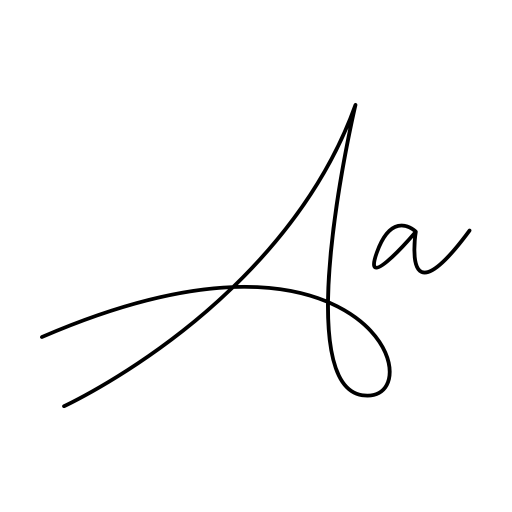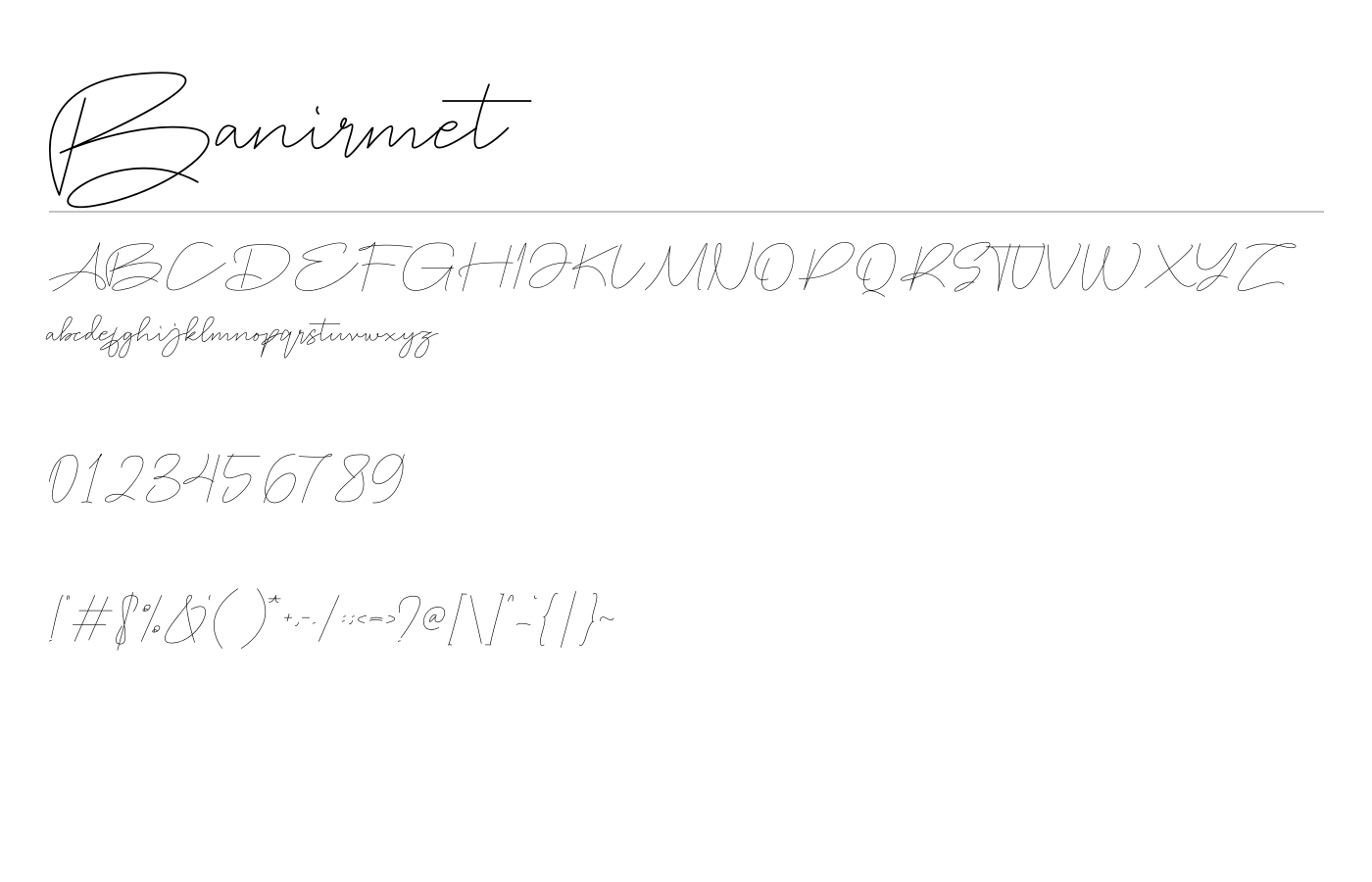
Banirmet is an elegant, finely crafted script font with a delicate, hand-drawn feel characterized by thin, smooth strokes and graceful, flowing letterforms. Its light weight and airy design make it perfect for sophisticated branding, wedding invitations, and stylish editorial use where a personal, charming touch is desired. This font adds a sense of refinement and modern femininity to any project, enhancing its visual appeal without overpowering the content.
Banirmet Font
About Banirmet Font
| Font family | Banirmet Font |
| Designer | Jada Akbal |